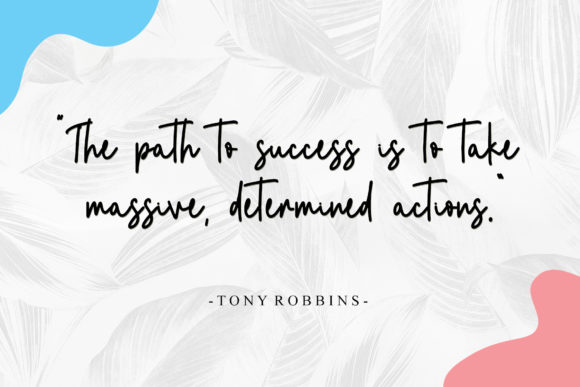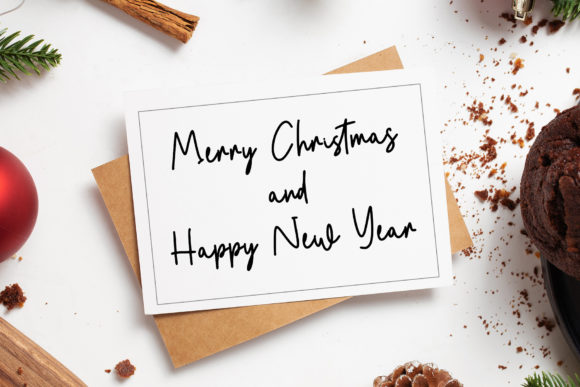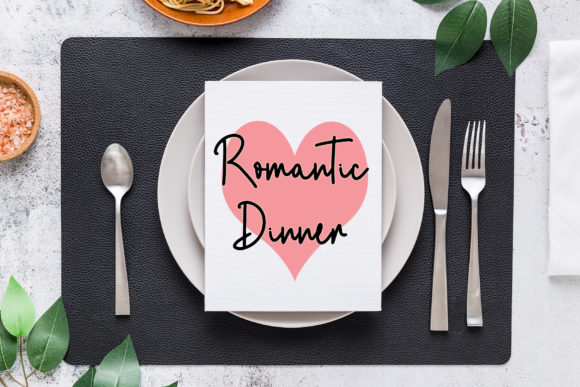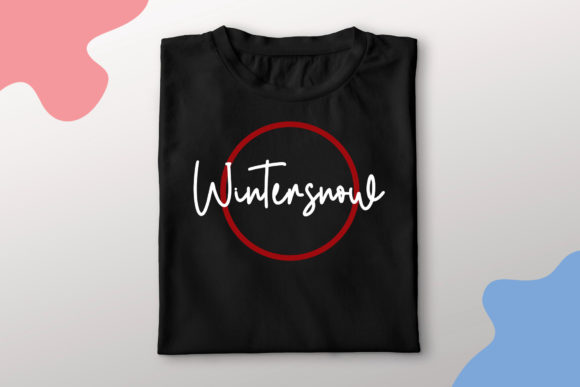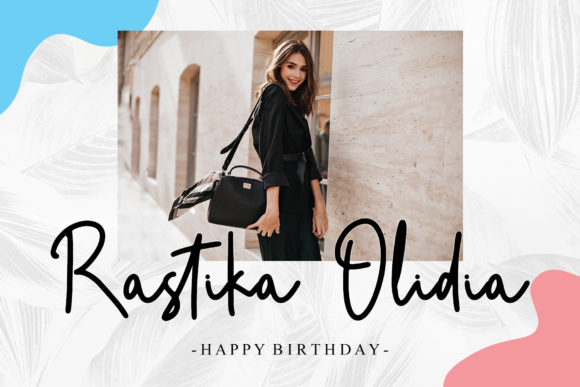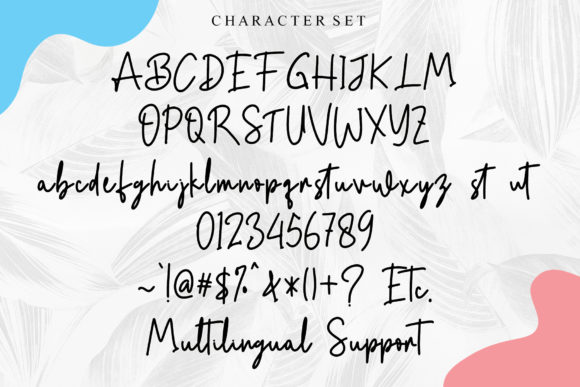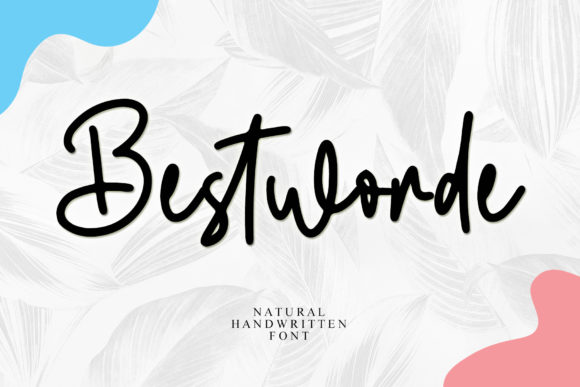
The Ultimate Guide to Bestworde Font: Adding a Fun and Friendly Touch to Your Designs
As a designer, I’m sure you’ve been there – working on a project, pouring your heart and soul into it, and then suddenly realizing that something’s off. The design looks great, but it’s just missing that special something. For me, that something was a font. I was working on a fun project for a client who wanted a playful and friendly vibe, and I just couldn’t find the right font to match. That’s when I stumbled upon Bestworde Font, and let me tell you, it was love at first sight! 💕
Bestworde is a simple and quirky looking handwritten font that has become a staple in my design toolkit. Its adaptability and unique charm make it perfect for a variety of design ideas, from crafty projects to digital designs. In this article, I’ll share my honest review of Bestworde Font, provide a practical guide on how to use it on different platforms, and explore similar fonts and alternatives.
• ✅ Unique and quirky handwritten style that adds a fun and friendly touch to any design
• ✅ Highly adaptable and versatile, making it perfect for a variety of design projects
• ✅ Easy to read and understand, even in smaller font sizes
• ✅ Great for creating titles, headings, and emphasis text
• ⚠️ Limited character set, which may not be suitable for complex or multilingual designs
• ⚠️ May not be the best choice for body text or lengthy paragraphs, as it can be a bit too playful
The Story Behind Bestworde Font
Bestworde Font was created with the intention of providing a unique and playful font for designers and crafters. The designer wanted to create a font that was both fun and friendly, yet still professional and adaptable. The result is a font that’s perfect for adding a touch of personality to any design project.
Author Letterafa Studio
Q: What is Bestworde Font?
A: Bestworde Font is a simple and quirky looking handwritten font designed for adding a fun and friendly touch to designs.
Q: Is Bestworde Font easy to read?
A: Yes, Bestworde Font is designed to be easy to read and understand, even in smaller font sizes.